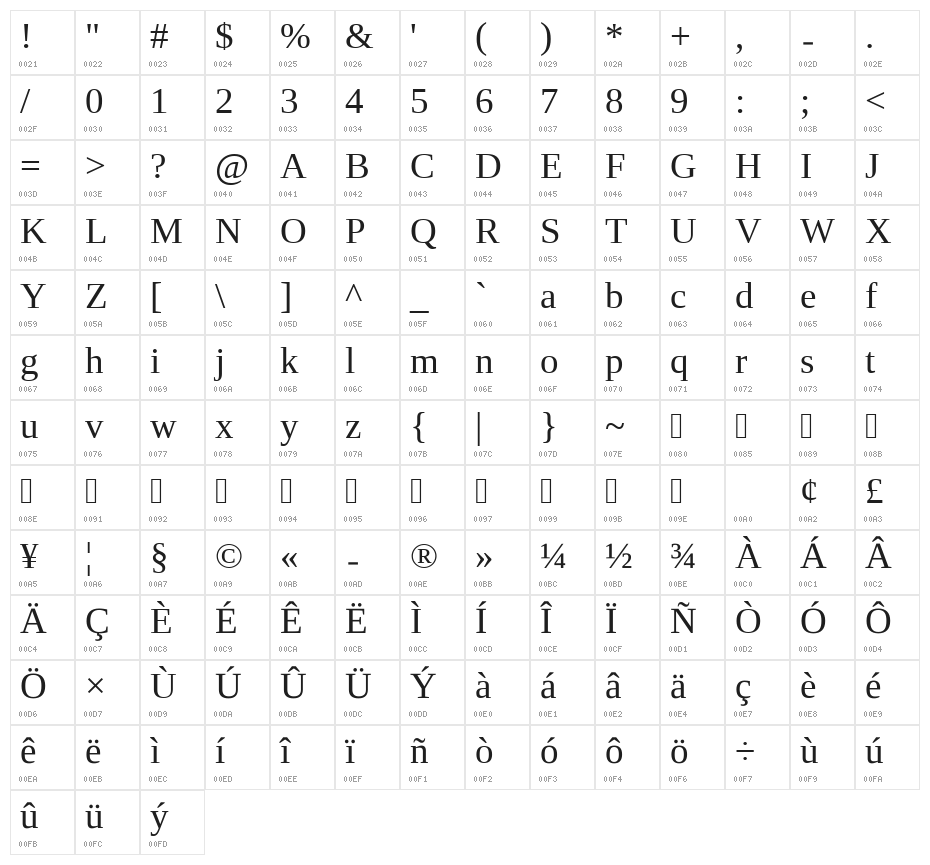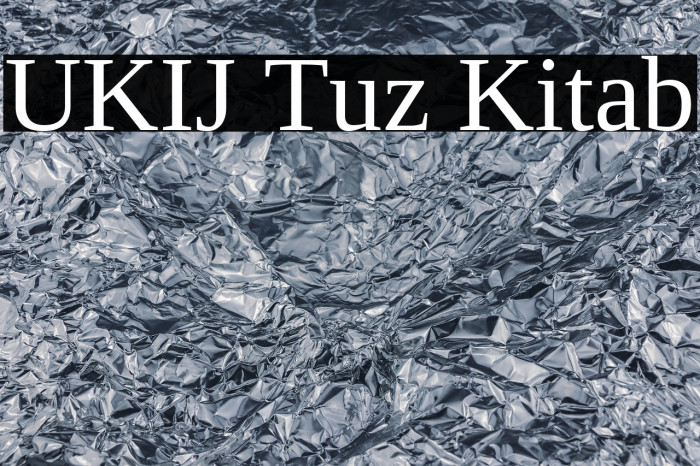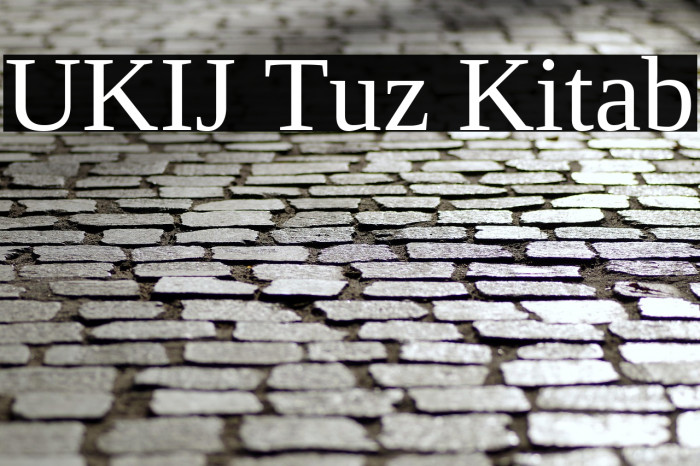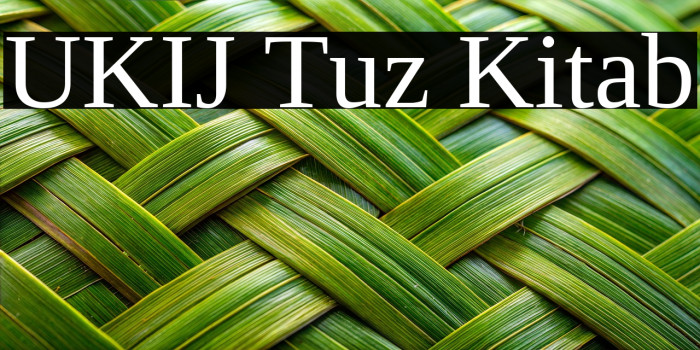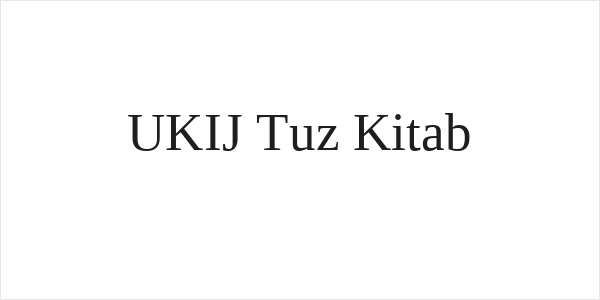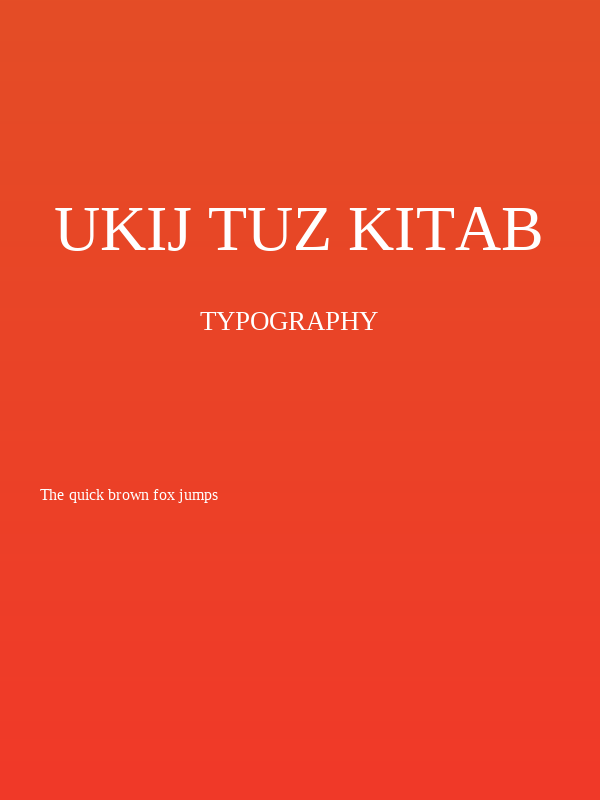
UKIJ Tuz Kitab Font
UKIJ Tuz Kitab Description
This font features a classic serif design with elegant and refined strokes. The uppercase letters are bold and commanding, while the lowercase letters maintain a balanced and readable form. The numerals are clear and distinct, making them suitable for both display and text purposes. Special characters are well-integrated, ensuring versatility in various applications. The overall design is timeless, offering a professional and sophisticated appearance suitable for formal documents, editorial content, and branding.
| Proposed Projects | Ideal for editorial content, formal documents, branding, and print media. |